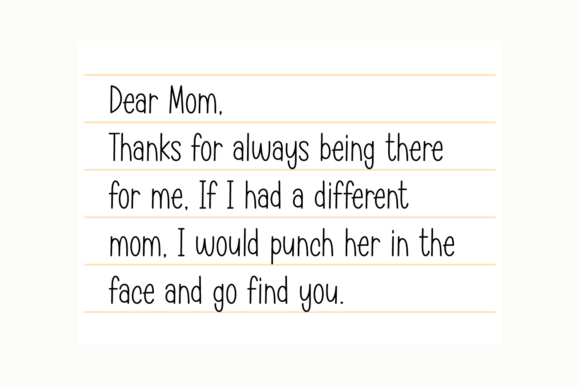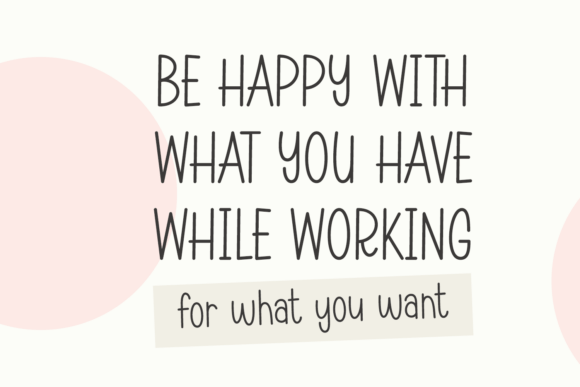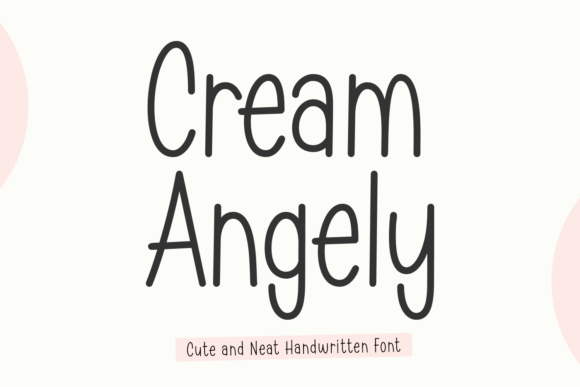
Cream Angely Font: The Perfect Handwritten Typeface for Creative Projects
Are you a designer, crafter, or educator looking for a font that exudes warmth, friendliness, and approachability? Look no further than the Cream Angely font! This delightful handwritten typeface is designed to bring a touch of whimsy and playfulness to your creative projects, making it perfect for a wide range of applications.
What is Cream Angely Font?
Cream Angely is a cute, friendly, and round lettered handwritten font that boasts clean, rounded strokes and a charming, informal feel. Its unique blend of elegance and playfulness makes it an excellent choice for designers, crafters, and educators seeking to add a personal touch to their work.
Key Features of Cream Angely Font
- Handwritten charm: Cream Angely’s handwritten design gives it a distinctly personal and approachable feel, perfect for creating materials that require a human touch.
- Clean, rounded strokes: The font’s rounded strokes add a touch of softness and elegance, making it suitable for a wide range of creative projects.
- Casual and friendly: Cream Angely’s informal design makes it perfect for crafting materials that require a friendly, approachable tone.
Cream Angely font is an excellent choice for a variety of creative projects, including:
- Crafting: Add a personal touch to your crafting projects, such as DIY tutorials, patterns, and inspirational quotes.
- Educational projects: Use Cream Angely to create engaging and interactive educational materials, such as worksheets, presentations, and classroom decorations.
- Presentations: Add a touch of personality to your presentations, making them more engaging and memorable.
- Classroom materials: Create welcoming and inclusive classroom materials, such as labels, charts, and posters.
- Planners: Use Cream Angely to create visually appealing and functional planners, journals, and organizers.
- Greeting cards: Add a personal touch to your greeting cards, making them more special and meaningful.
Why Choose Cream Angely Font?
With so many fonts available, why choose Cream Angely? Here are just a few reasons:
- Unique and distinctive: Cream Angely’s handwritten design sets it apart from more traditional fonts, making it perfect for designers and crafters seeking to add a personal touch to their work.
- Versatile: This font is suitable for a wide range of creative projects, from crafting and education to presentations and greeting cards.
- Easy to read: Cream Angely’s clean, rounded strokes make it easy to read, even at smaller font sizes.
Tips for Using Cream Angely Font
To get the most out of Cream Angely font, here are a few tips:
- Pair with complementary fonts: Combine Cream Angely with other fonts to create visually appealing and engaging materials.
- Experiment with colors: Add a pop of color to your materials by pairing Cream Angely with bright, bold hues.
- Use it consistently: Use Cream Angely consistently throughout your materials to create a cohesive and recognizable brand.
Cream Angely font is a delightful handwritten typeface that brings a touch of warmth, friendliness, and approachability to any creative project. Its clean, rounded strokes and charming, informal feel make it perfect for designers, crafters, and educators seeking to add a personal touch to their work. With its versatility, ease of use, and unique design, Cream Angely is sure to become a favorite font in your collection.